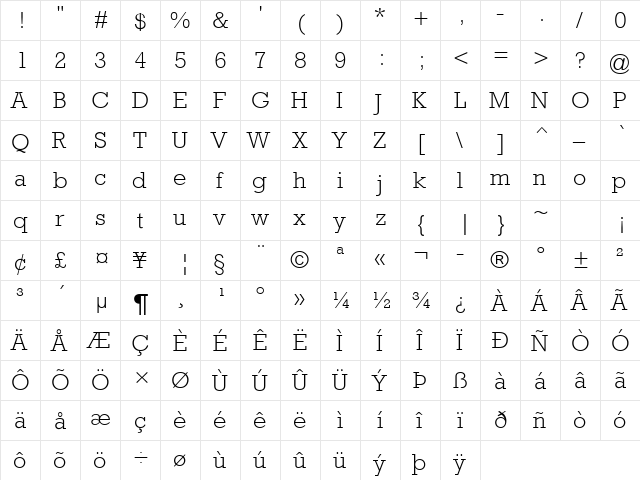
Rockwell Light Regular
Design Context for Rockwell Light Typeface
Rockwell Light is a composed and adaptable typeface that performs quietly and consistently across a wide range of design contexts. The delicate stroke weight brings airiness and refinement to layouts.
Pro Tip: Use Rockwell Light in both headline and body roles to test its range before committing to a single application.